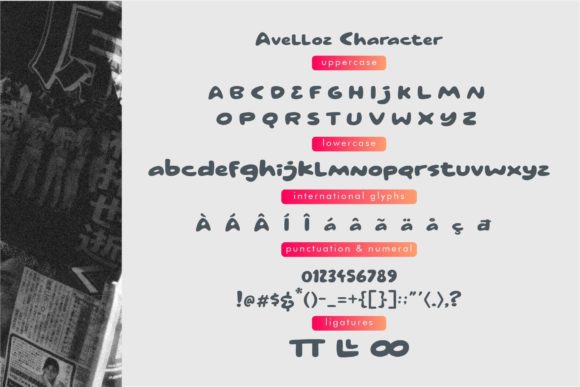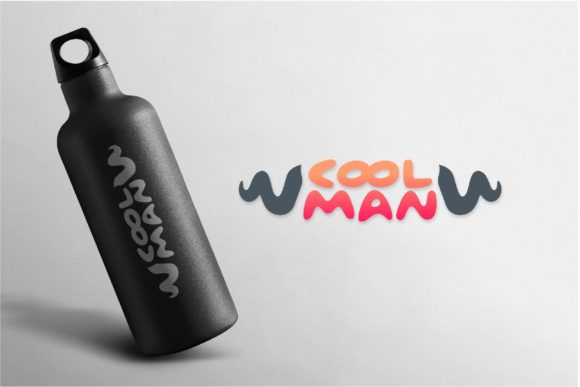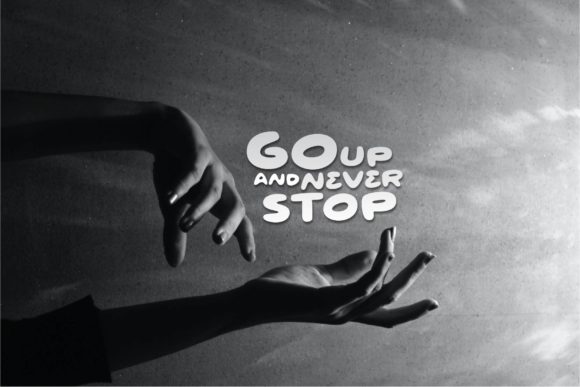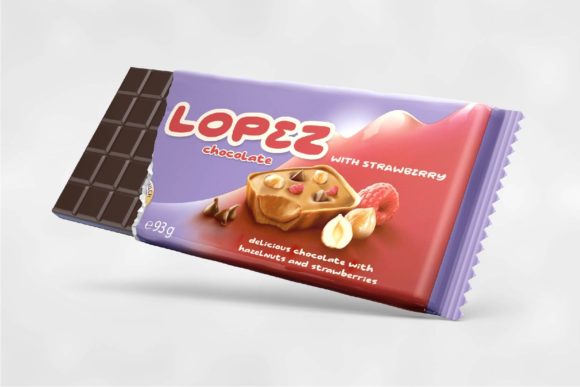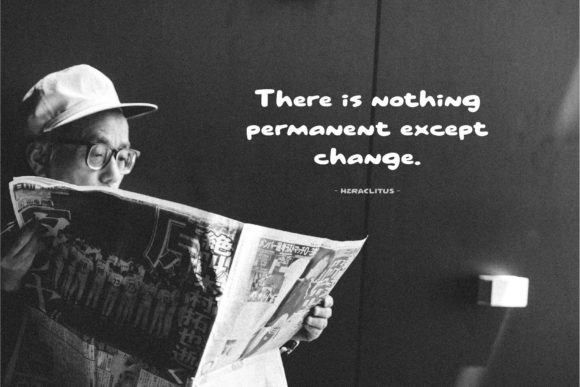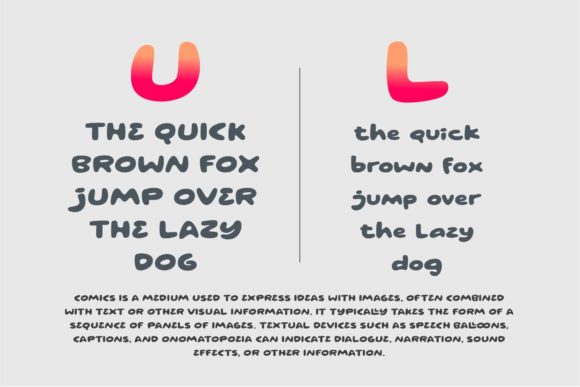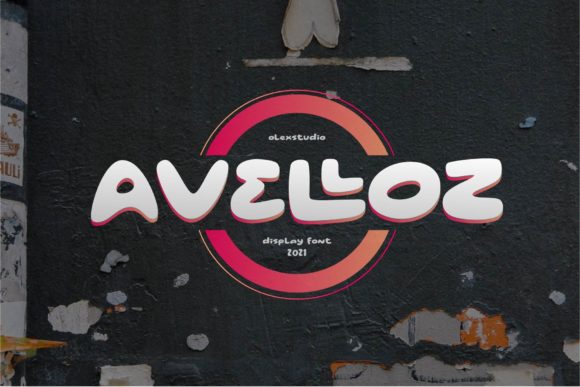
Introducing Avelloz Font: The Ultimate Choice for a Relaxed and Vintage Touch
Are you tired of using the same old fonts for your design projects? Look no further than Avelloz Font, a cool, natural, and vintage-styled display font that’s perfect for adding a relaxed touch to your creations. With its informal style and casual vibe, Avelloz is sure to become a go-to choice for designers and crafters alike.
What Makes Avelloz Font So Special?
Avelloz Font is a unique and eye-catching font that’s designed to evoke a sense of nostalgia and playfulness. Its vintage style is reminiscent of classic posters and signs from the past, but with a modern twist that makes it perfect for contemporary design projects. Whether you’re working on a branding campaign, a website, or a craft project, Avelloz is sure to add a touch of personality and whimsy.
Key Features of Avelloz Font
• Cool and Natural Style: Avelloz Font has a relaxed and casual vibe that’s perfect for designs that require a laid-back touch.
• Vintage-Inspired: With its classic style and nostalgic feel, Avelloz is perfect for projects that require a retro or vintage look.
• Display Font: Avelloz is designed to make a statement, making it perfect for headlines, titles, and other display text.
• Easy to Read: Despite its playful style, Avelloz is easy to read and understand, making it perfect for designs that require a clear and concise message.
How to Use Avelloz Font in Your Designs
Avelloz Font is versatile and can be used in a variety of design projects, including:
• Branding and Advertising: Use Avelloz to create eye-catching logos, posters, and ads that require a relaxed and casual vibe.
• Web Design: Add a touch of personality to your website with Avelloz, perfect for headings, titles, and other display text.
• Crafting and DIY Projects: Use Avelloz to add a vintage touch to your craft projects, such as signs, banners, and other paper crafts.
• Social Media Graphics: Create engaging social media graphics with Avelloz, perfect for Facebook, Instagram, Twitter, and more.
Tips for Getting the Most Out of Avelloz Font
To get the most out of Avelloz Font, here are a few tips to keep in mind:
• Use it as a Display Font: Avelloz is designed to make a statement, so use it as a display font to add emphasis and personality to your designs.
• Experiment with Colors: Avelloz looks great in a variety of colors, so don’t be afraid to experiment and find the perfect hue for your design.
• Pair it with Other Fonts: Avelloz pairs well with other fonts, so try combining it with a sans-serif font for a modern and playful look.
Avelloz Font is a unique and versatile font that’s perfect for designers and crafters looking to add a relaxed and vintage touch to their creations. With its cool and natural style, informal vibe, and easy-to-read design, Avelloz is sure to become a go-to choice for a wide range of design projects. So why wait? Download Avelloz Font today and start creating designs that are truly one-of-a-kind!